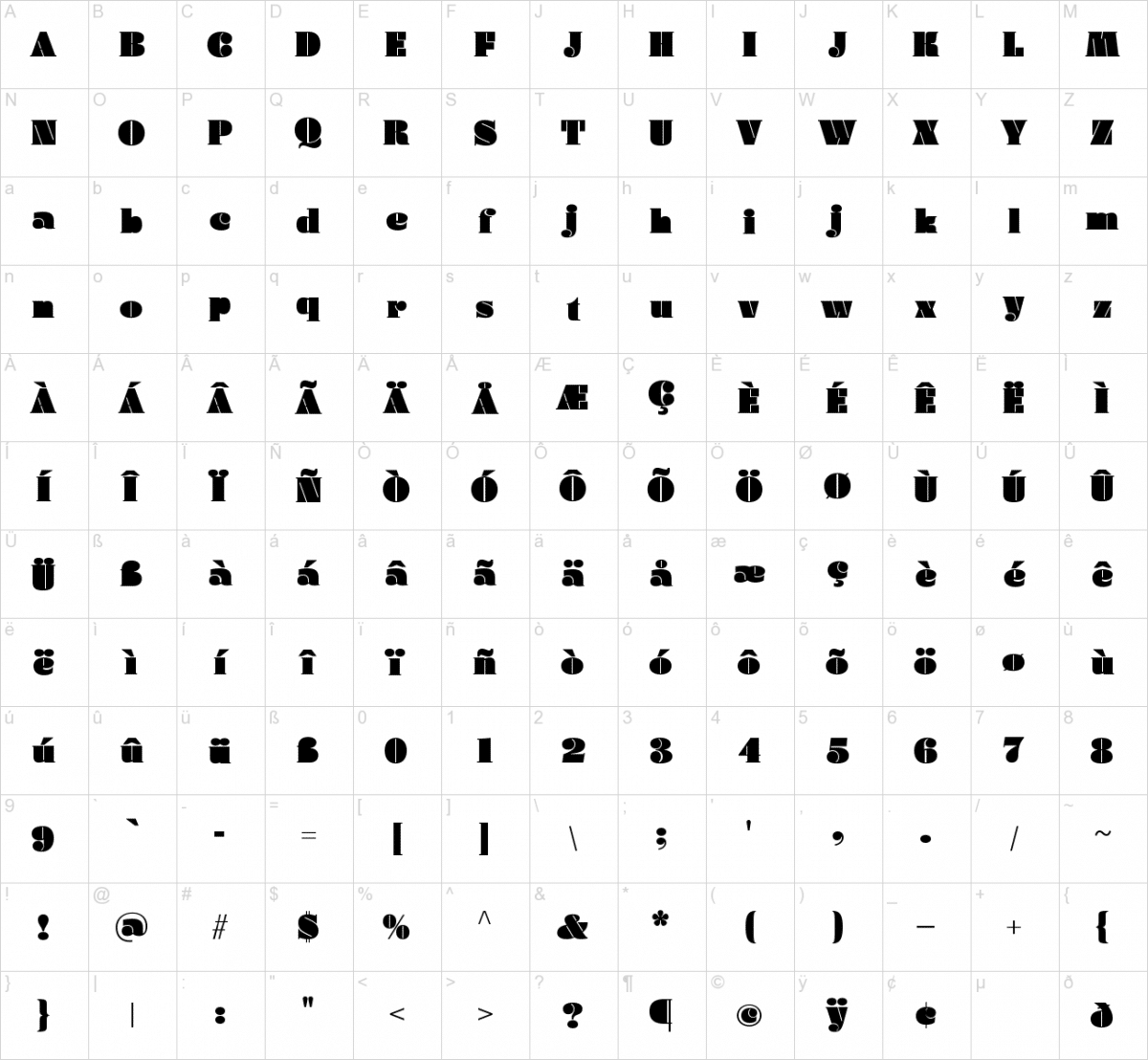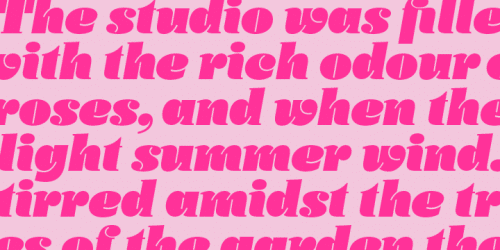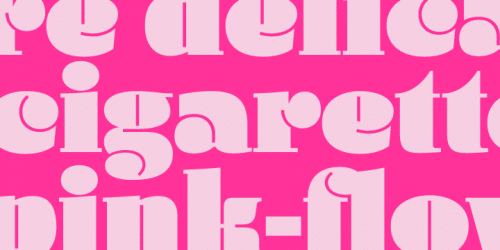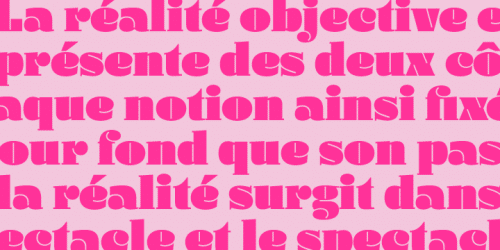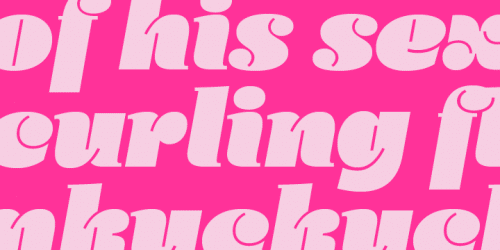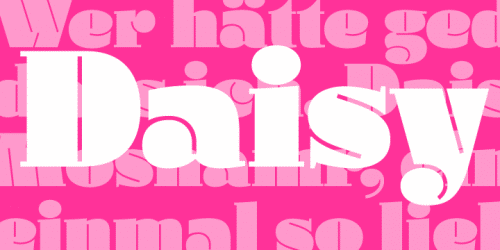
Daisy Font Family
Daisy is an ultra-fat serif typeface with very fine counters, designed by Ludwig Übele. You can use this font for personal purpose.